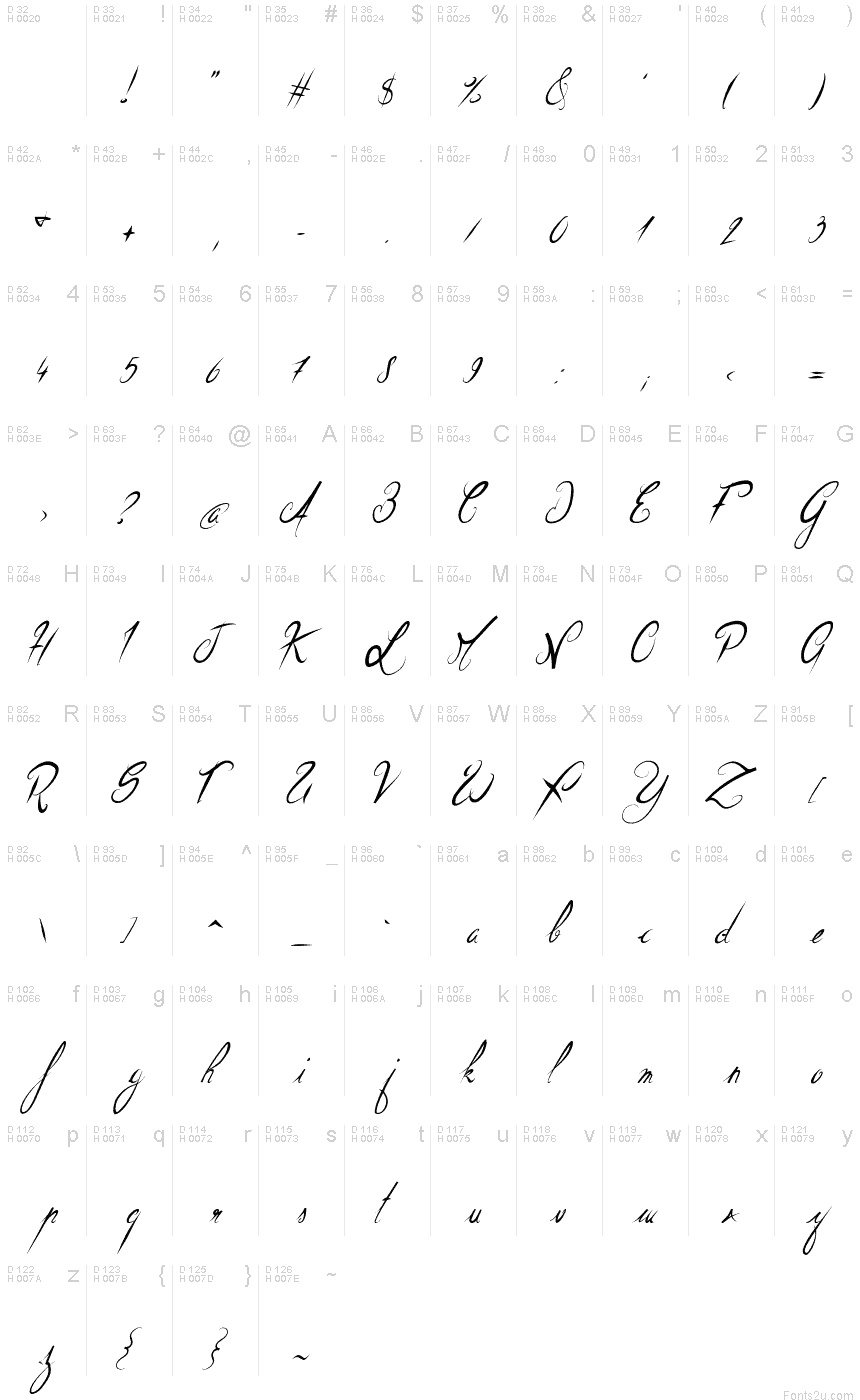
ElegantDragonItalic
ElegantDragon Italic by Nwardesign is a free calligraphic script with dramatic thick-thin strokes and a steep forward sweep. Long loops and blade-like turns make the silhouette distinctly theatrical and extravagant.
The curling strokes can echo ribbons or ornamental linework in wedding invitations, fashion packaging, and performance posters. In a logo for a boutique or luxury label, the sweeping capitals can become part of an emblem rather than functioning as neutral lettering.
The font includes regular, bold, and italic styles.